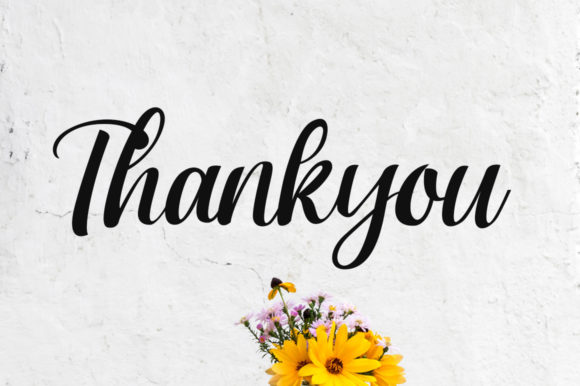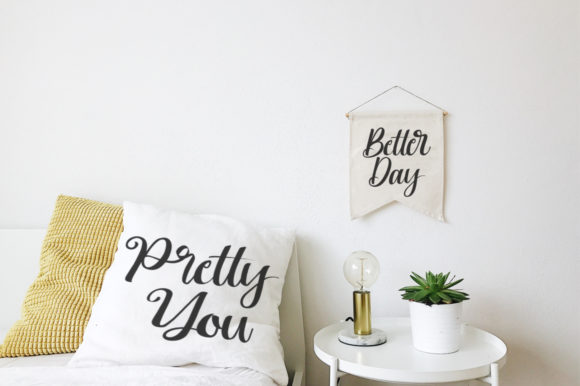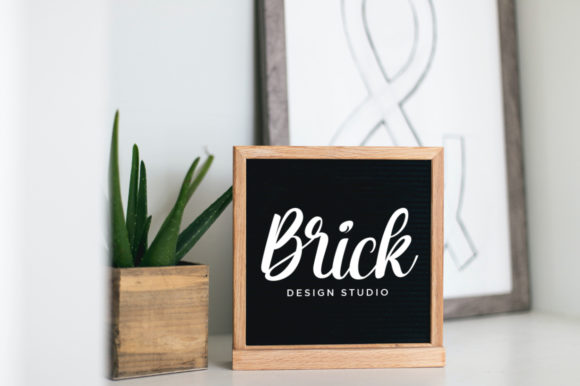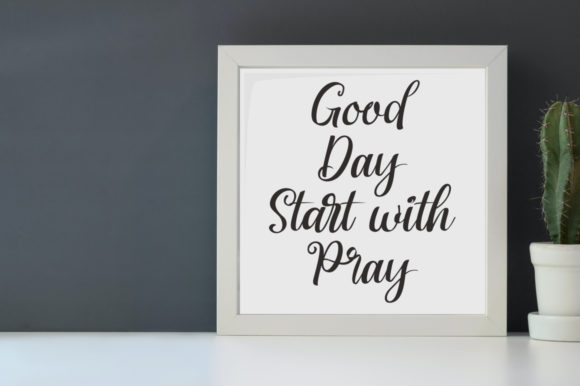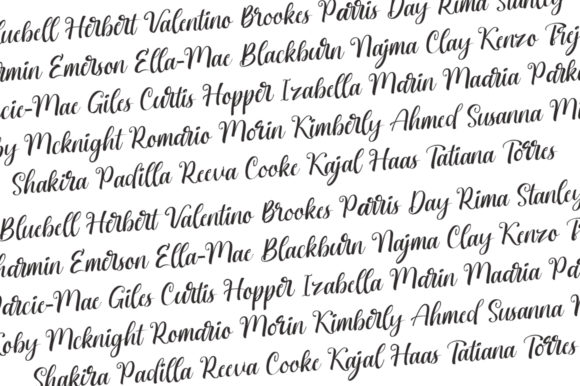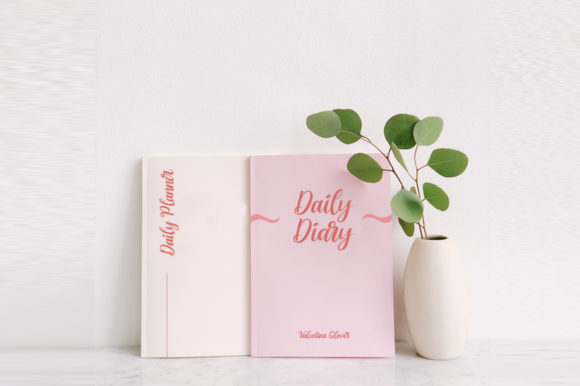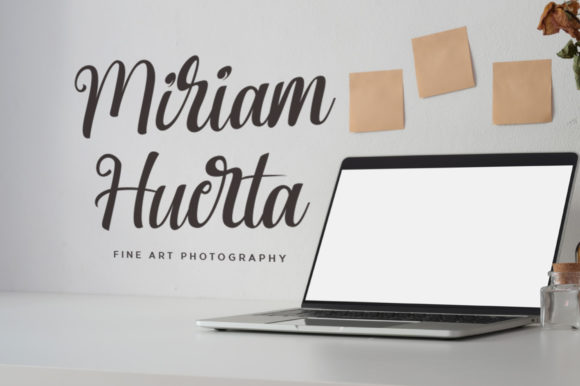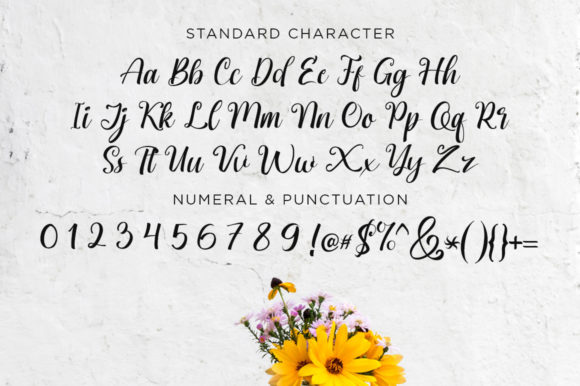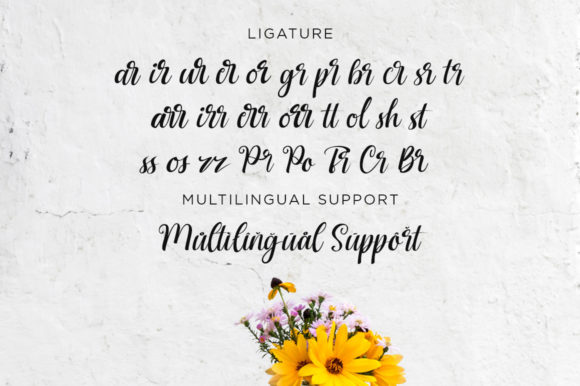
Brigitta Font
About Brigitta Font
Brigitta is a sweet, soft hand-lettered script font. It features an incredibly classic style, while still keeping a friendly feel. Brigitta is the perfect font for making original and outstanding designs.